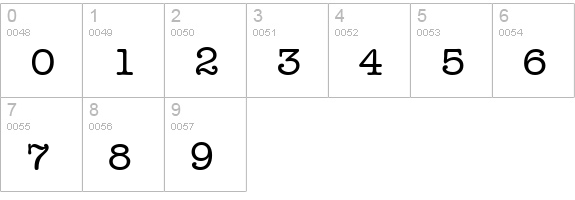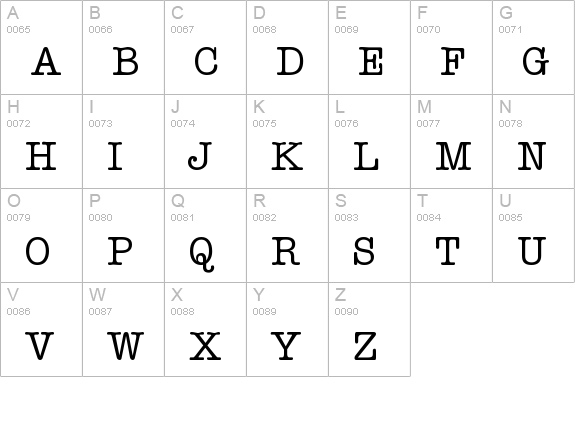
Introducing Typist font, a timeless and elegant typeface that effortlessly blends sophistication with versatility. Designed for those seeking a touch of classic charm in their projects, Typist font is the perfect choice for both print and digital mediums. With its clean and crisp letterforms, Typist font exudes a sense of professionalism and refinement. Each character is meticulously crafted to ensure legibility and clarity, making it ideal for a wide range of applications, including editorial design, branding, packaging, and more. The beauty of Typist font lies in its ability to effortlessly adapt to various design styles and aesthetics. Whether you are working on a modern minimalist layout or a vintage-inspired piece, this font seamlessly integrates into any design concept, adding a touch of elegance and sophistication. But that's not all – Typist font is not only visually pleasing, but it is also incredibly practical. Its generous x-height and well-balanced proportions make it highly readable, even at smaller sizes. This makes it a fantastic choice for body text, ensuring that your content is both visually engaging and easily digestible. What sets Typist font apart from the rest is its availability as a free download at FontsMarket.com. Yes, you read that right – this exceptional font can be yours at absolutely no cost. FontsMarket.com offers a vast collection of high-quality fonts, and Typist font is just one of the many gems waiting to be discovered. So, why wait? Elevate your design projects with the timeless beauty and versatility of Typist font. Download it for free at FontsMarket.com and unleash your creativity today.